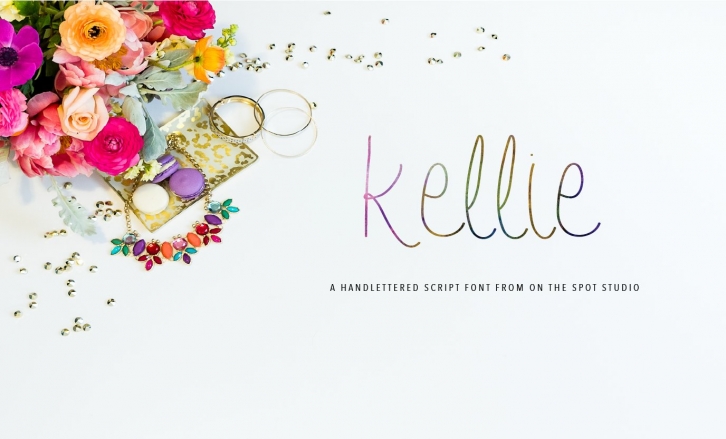
Kellie is a super sweet script that is half cursive, half print for a fluid journaling feel! Includes a secondary fancier font that includes endings on each letter to fancy up your design just a little!